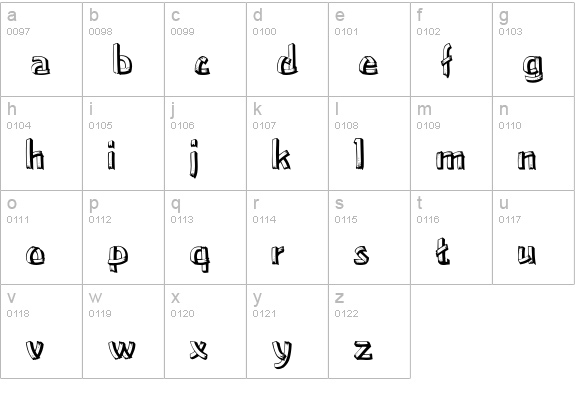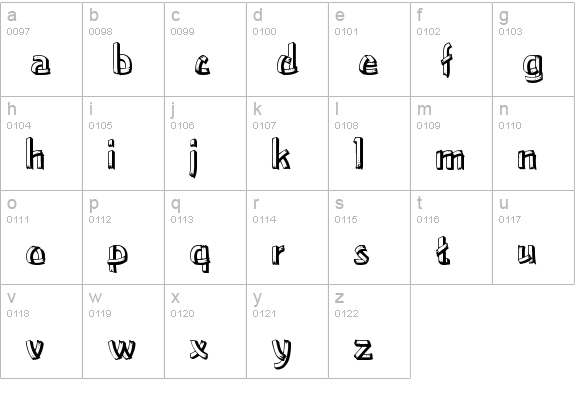
Campfire Font Details
Campfire font is a rustic and charming typeface that evokes the warmth and coziness of gathering around a campfire. With its rough edges and hand-drawn style, this font is perfect for adding a touch of wilderness to your designs. Whether you're working on a camping-themed project, a nature-inspired branding, or simply want to add a rustic flair to your creations, Campfire font is sure to bring that outdoor vibe to your work. Best of all, Campfire font is completely free to download at FontsMarket.com. So, go ahead and bring the spirit of the great outdoors to your designs with this delightful and versatile typeface.